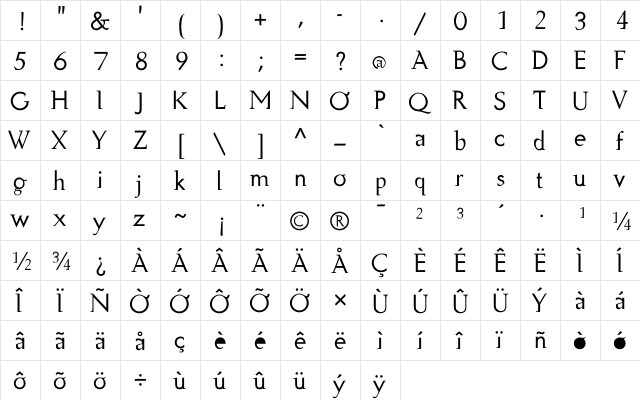
Kennedy Regular
Design Context for Kennedy Typeface
Kennedy takes a measured approach to typography — its balanced proportions and neutral character make it a reliable workhorse for both digital and print work.